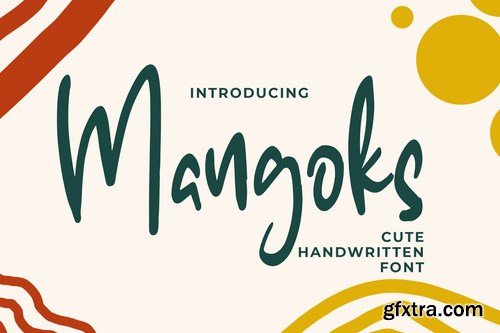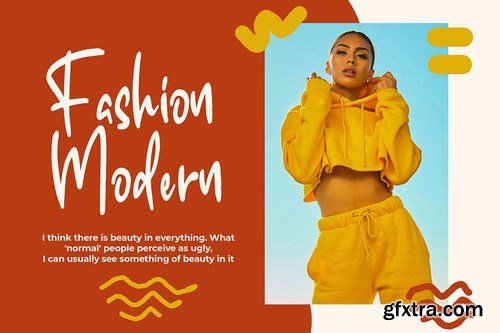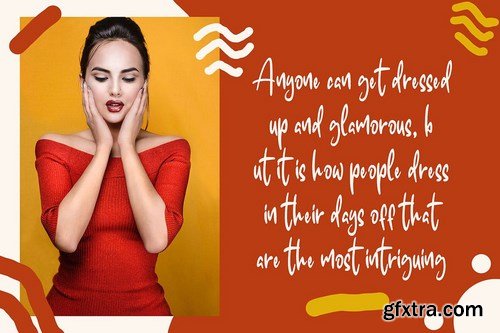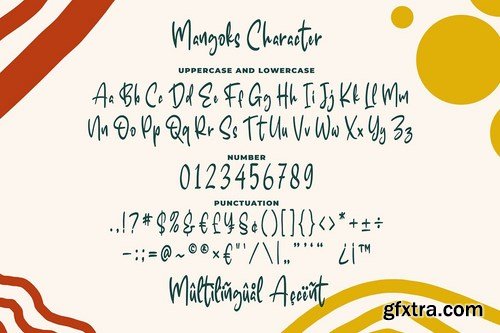
Introducing of our new product the name is The Mangoks Cute Handwritten Font. Mangoks inspired by modern calligraphy this font is a fun theme very good for signature, poster, fashion, wedding, branding etc